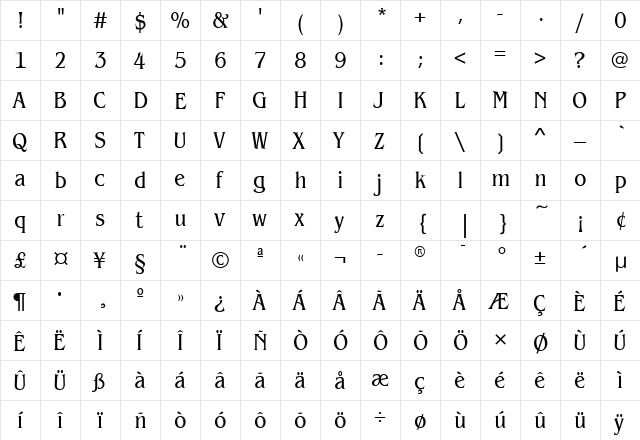
BenguiatCdITC Book
Design Context for BenguiatCdITC Typeface
BenguiatCdITC offers clean, dependable letterforms without strong stylistic allegiance, making it a practical choice for designers who need flexibility.
Pro Tip: Use BenguiatCdITC in both headline and body roles to test its range before committing to a single application.